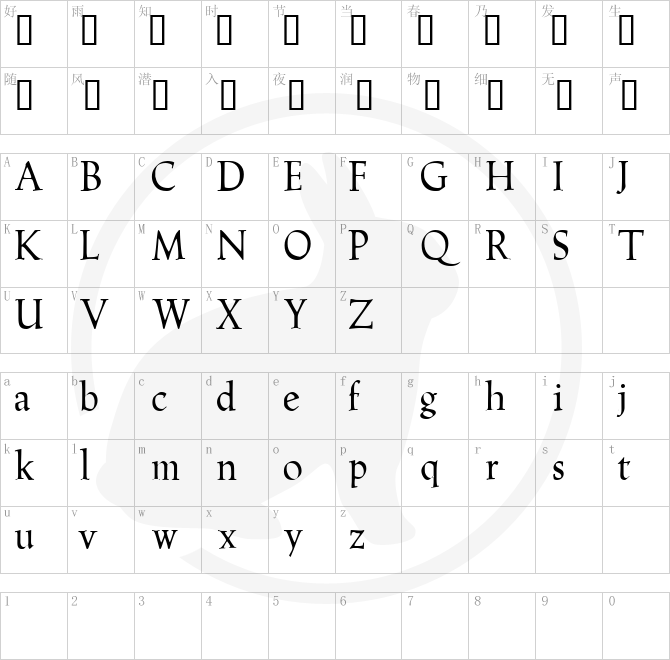
- Font Name:Hadrianus Demo
Hadrianus-Demo-copy-2-.ttf is a very beautiful artistic font, Hadrianus-Demo-copy-2-.ttf is widely used in the design and printing of various books and pictures,Hadrianus-Demo-copy-2-.ttf has a strong visual impact,Hadrianus-Demo-copy-2-.ttf is a commonly used font in newspapers, magazines and books, and is used in posters, e-commerce Poster design, store design, logo design, font design and other fields.Hadrianus-Demo-copy-2-.